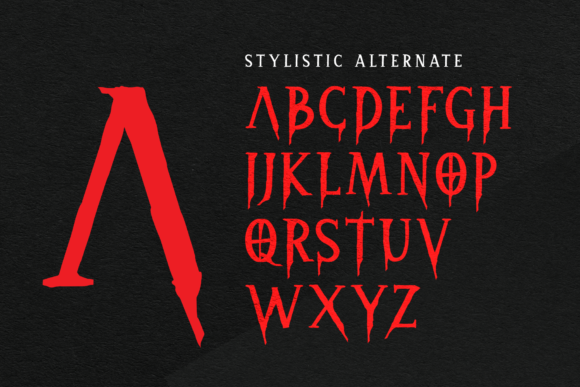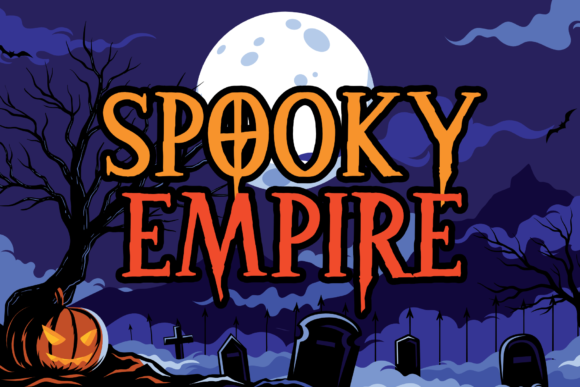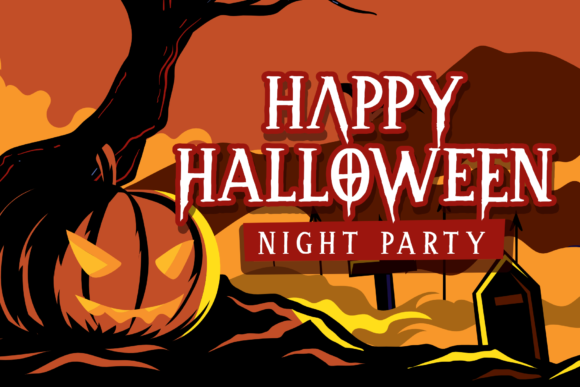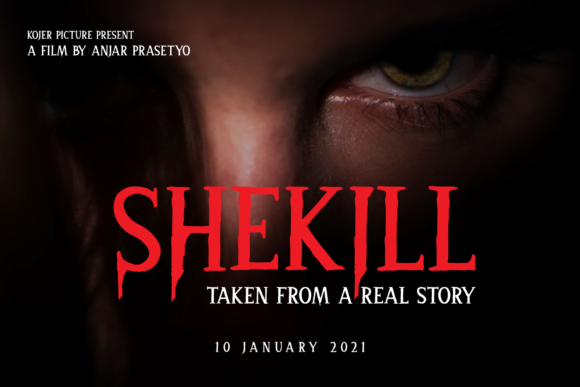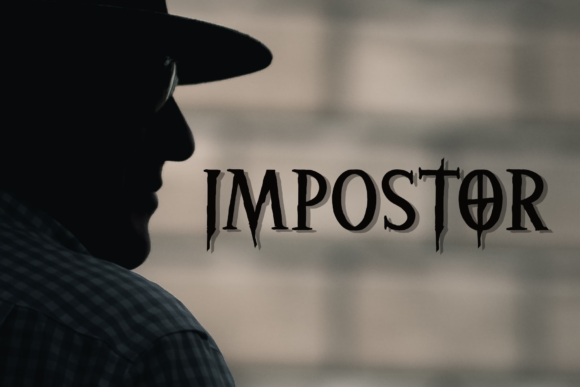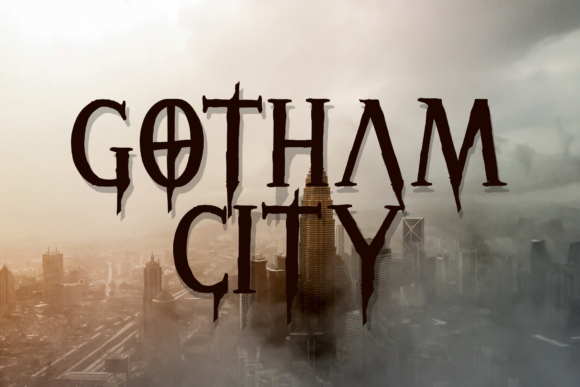
Introduction to Santet Font
Santet is a bold and dramatic display font.
It looks ideal on Halloween themed designs, so add it confidently and notice how it makes your creations stand out .
Key Features of Santet Font